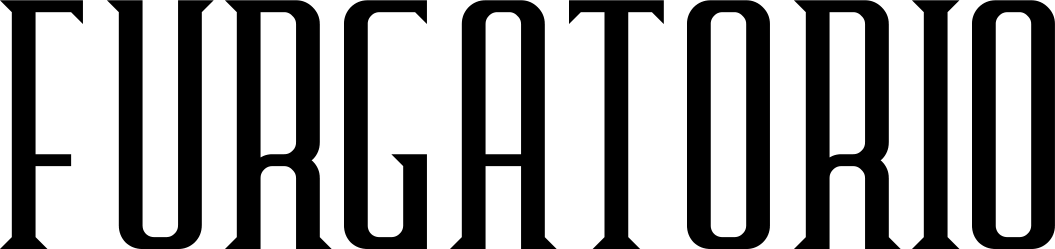
Furgatorio Font
If you are searching for a retro font for your text designs, you should consider Furgatorio as a perfect option. Fortunately, you can have 2 distinct versions of this case at the same time. It’s suitable for theater tickets, book covers, apparel products, and more. Just keep in mind, that this American classic font doesn’t contain lowercase letters.
Designed by: Aaron Amar